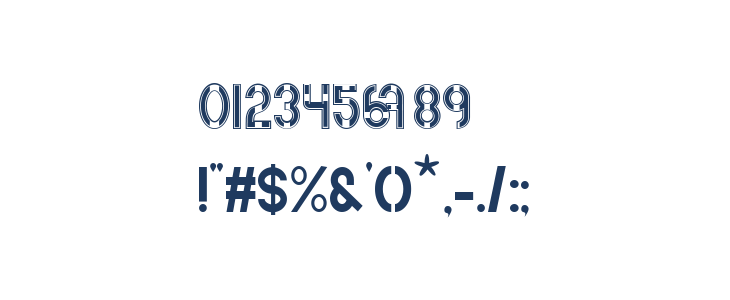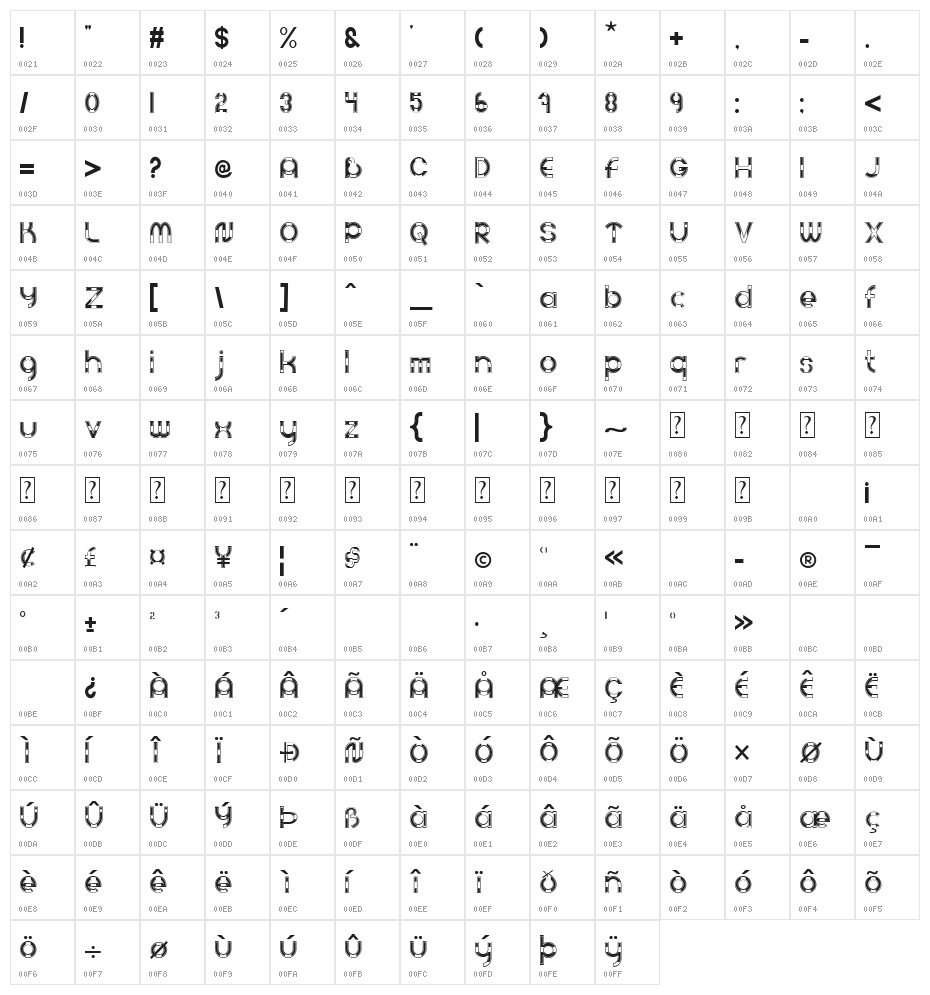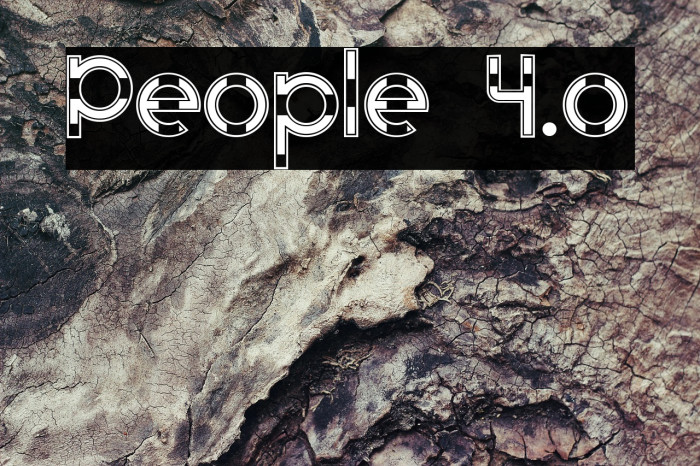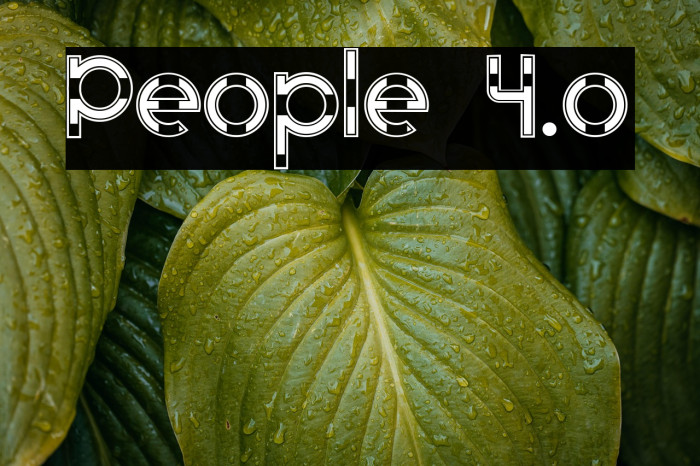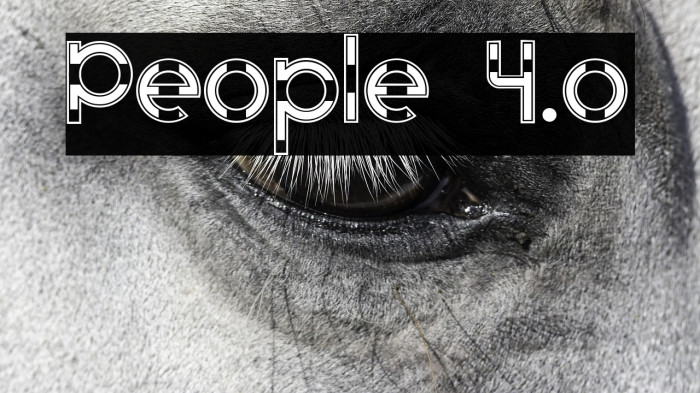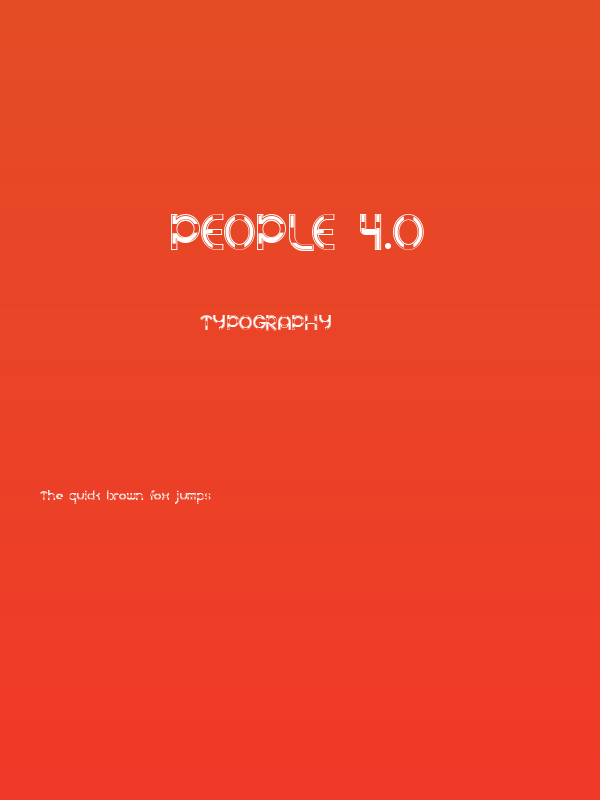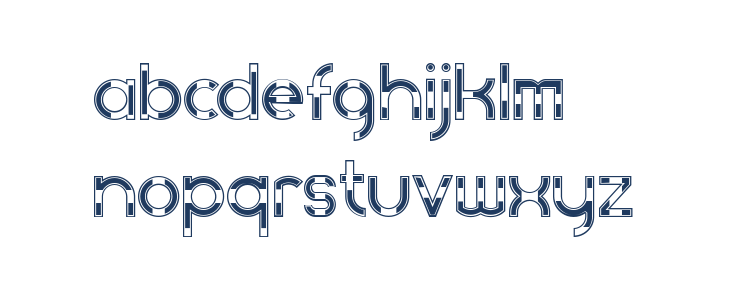
People 4.o Font
People 4.o Description
This font features a bold, geometric design with a distinct three-dimensional effect. Each character is outlined with a shadow that gives it depth and a sense of movement. The uppercase and lowercase letters share a consistent style, with rounded edges and a modern, futuristic appearance. The numbers and special characters maintain the same aesthetic, ensuring uniformity across all elements. This font's unique style makes it stand out, making it ideal for eye-catching designs.